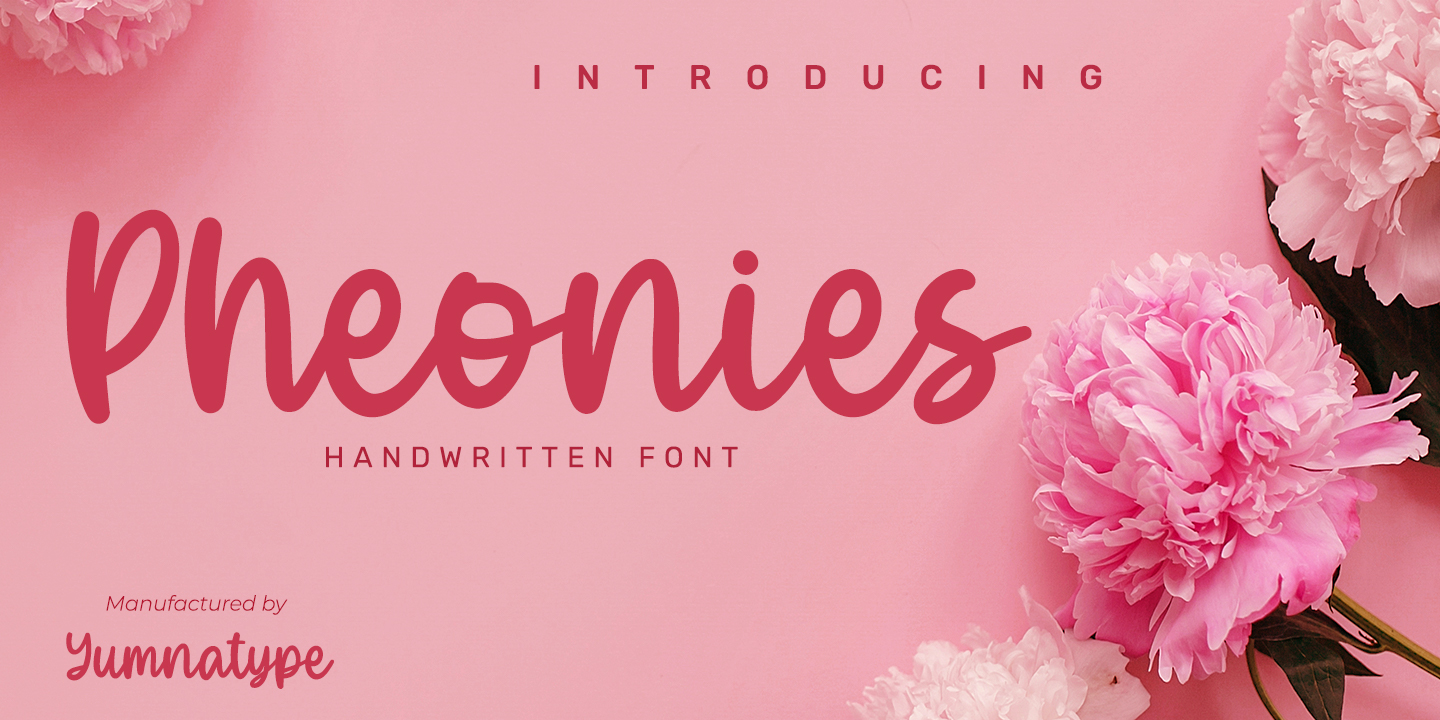
Pheonies Font is perfect for elegant floral branding, luxury peony garden signage, sophisticated botanical logos, upscale flower shop displays, premium beauty salon marketing, refined wedding stationery, delicate spring festival posters, graceful feminine fashion labels, high-end cosmetic packaging, elegant spa advertisements, artistic nature publications, and sophisticated organic product branding.
What makes Pheonies Font so exciting is its exquisite floral-inspired design that captures the delicate beauty and sophisticated elegance of blooming peonies. This enchanting typeface features graceful curves, organic flowing lines, and subtle botanical details that evoke the luxurious softness and natural refinement of these magnificent flowers, making it perfect for brands that want to communicate premium quality, natural beauty, and feminine sophistication with artistic flair.
The Pheonies Font family typically includes regular and ornate variations with decorative floral elements, elegant swashes, and botanical-inspired alternates that enhance the peony theme while ensuring excellent legibility across various luxury design applications.
Whether you're designing premium botanical branding or creating elegant materials for luxury beauty products, Pheonies Font Free Download delivers the perfect typography solution for projects requiring sophisticated floral elegance and natural refinement. This versatile font beautifully combines organic artistry with contemporary polish, making it an essential resource for designers working on high-end projects that celebrate the timeless beauty of nature and the luxurious appeal of floral sophistication.